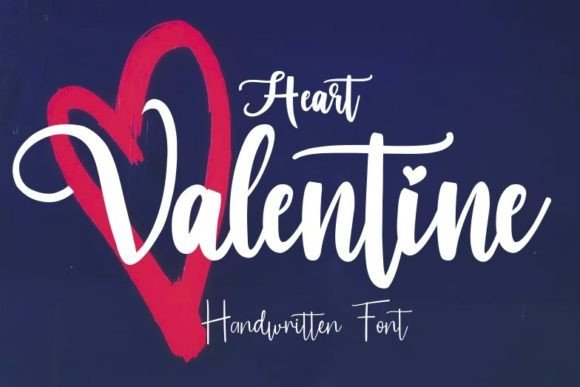
Introducing Heart Valentine Font: Elevate Your Creations with this Gorgeous Script Font
Are you looking for a font that will add a touch of elegance and sophistication to your designs? Look no further than Heart Valentine Font, a stunning script font that is perfect for creatives who want to make their mark. In this article, we’ll dive into the features and benefits of this beautiful font, and explore how it can elevate your designs to the next level.
A Trendy and Stylish Addition to Your Font Collection
Heart Valentine Font is a gorgeous script font that is both trendy and stylish. Its handmade charm and unique character make it perfect for designers and crafters who want to add a personal touch to their work. Whether you’re creating invitations, greeting cards, or social media graphics, this font is sure to impress.
One of the standout features of Heart Valentine Font is its PUA (Private Use Area) encoding. This means that you can access all of the glyphs and swashes with ease, giving you complete creative control over your designs. With PUA encoding, you can easily insert special characters, such as hearts, flowers, and other decorative elements, to add an extra touch of whimsy and romance to your work.
Heart Valentine Font is a versatile font that is perfect for a wide range of design applications. Whether you’re a professional designer or a crafter who loves to create handmade cards and gifts, this font is sure to become a favorite. Here are just a few ways you can use Heart Valentine Font:
- Create beautiful wedding invitations, save-the-date cards, and other stationery
- Design stunning social media graphics, such as Valentine’s Day-themed posts and stories
- Make handmade cards and gifts for special occasions, such as birthdays and anniversaries
- Add a touch of elegance to your blog or website with custom graphics and headers
Key Features of Heart Valentine Font
So, what makes Heart Valentine Font so special? Here are some of its key features:
- Handmade script font with a unique and elegant character
- Perfect for a wide range of design applications, from stationery to social media graphics
- Trendy and stylish, with a romantic and whimsical feel
- Easy to use and customize, with a range of special characters and decorative elements
Tips for Using Heart Valentine Font
To get the most out of Heart Valentine Font, here are a few tips to keep in mind:
- Experiment with different font sizes and colors to add depth and interest to your designs
- Use the glyphs and swashes to add decorative elements and special characters to your work
- Pair Heart Valentine Font with other fonts to create a unique and eye-catching combination
- Don’t be afraid to get creative and try new things – Heart Valentine Font is a versatile font that can be used in many different ways
In conclusion, Heart Valentine Font is a gorgeous script font that is perfect for designers and crafters who want to add a touch of elegance and sophistication to their work. With its handmade charm, PUA encoding, and range of special characters and decorative elements, this font is sure to become a favorite in your font collection. So why wait? Download Heart Valentine Font today and start elevating your designs to the next level!